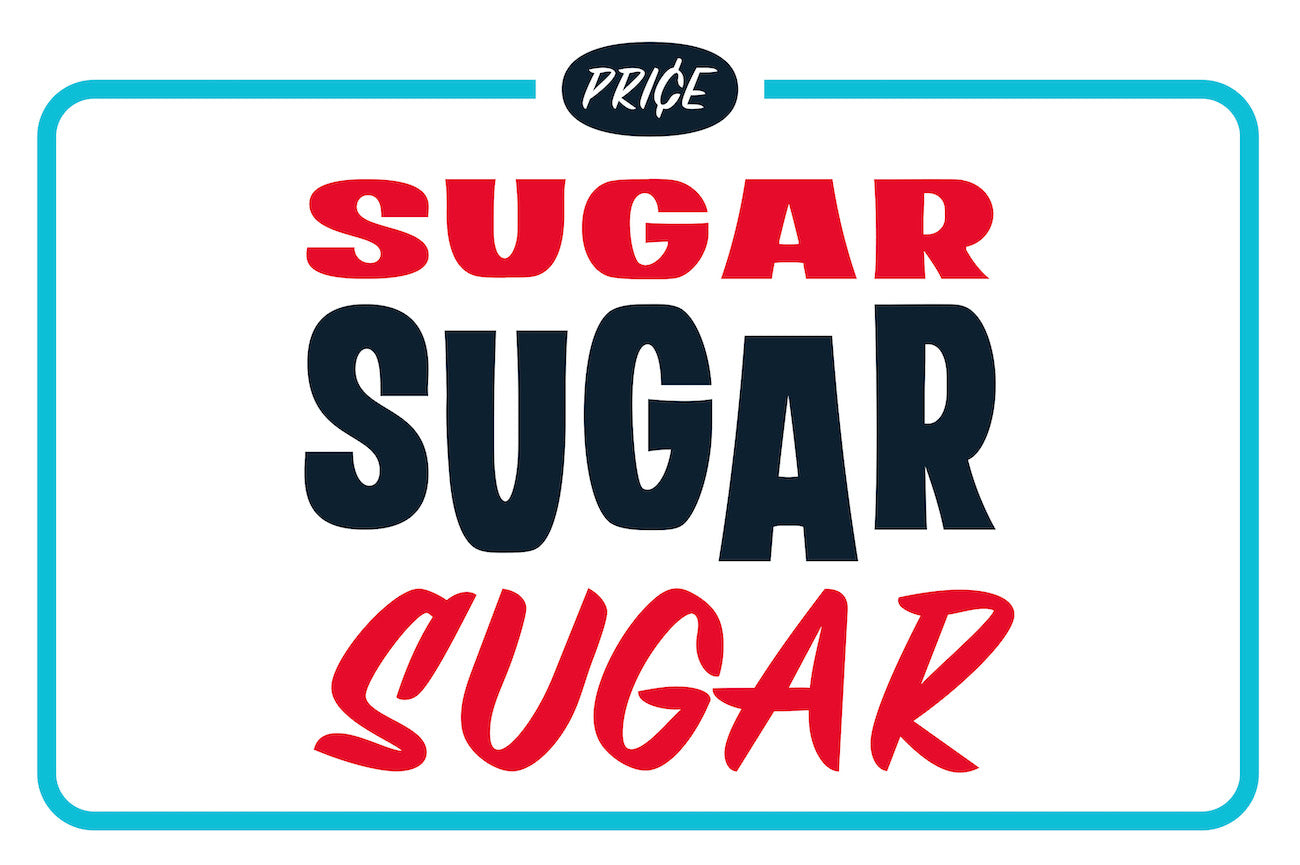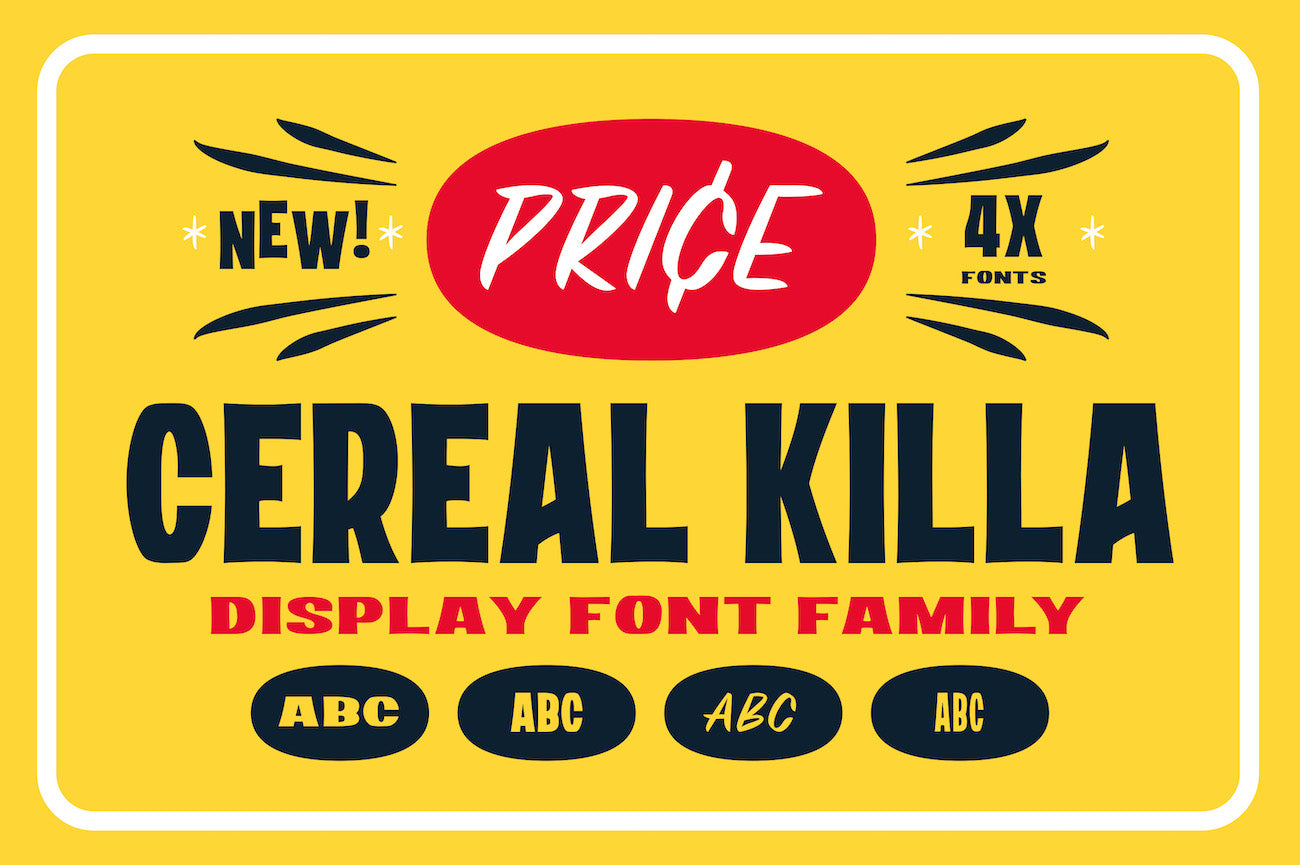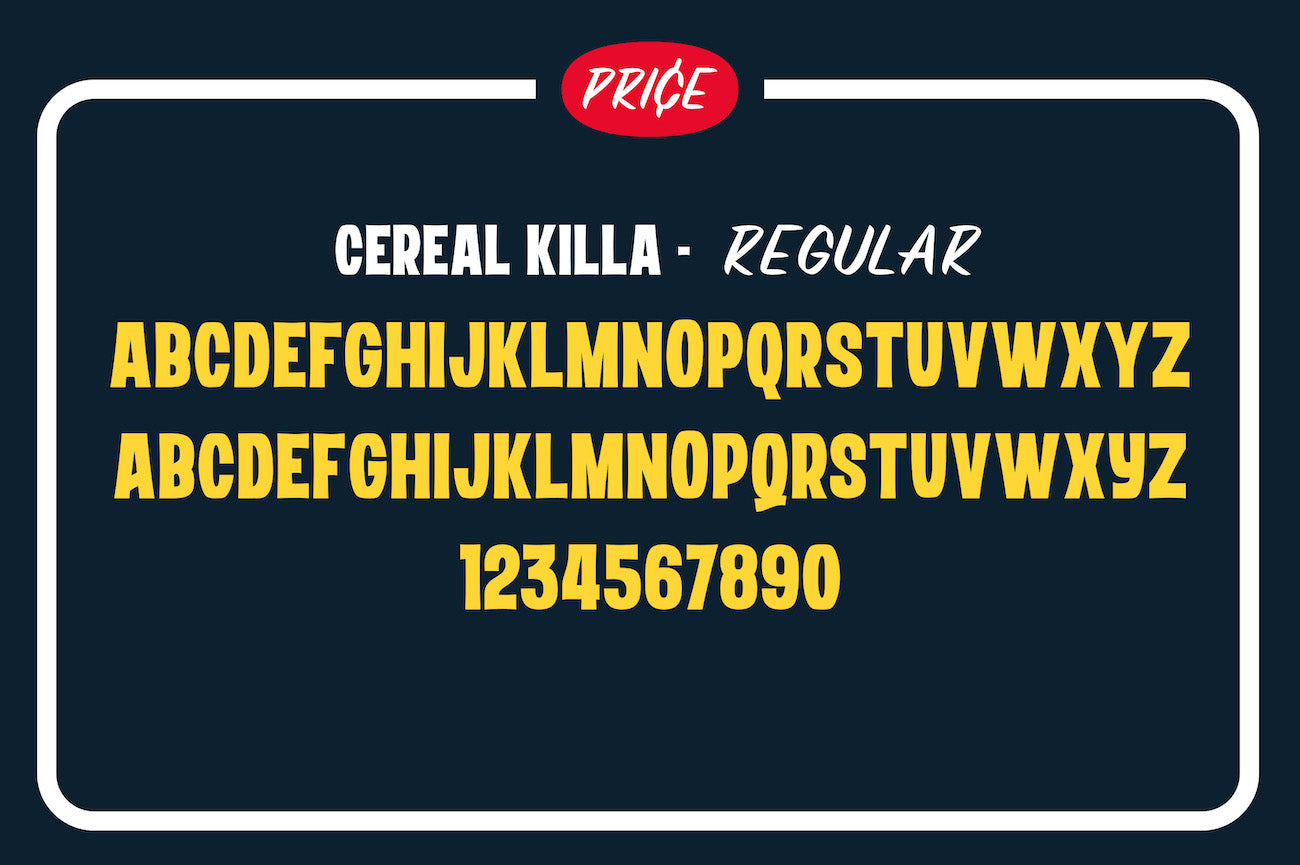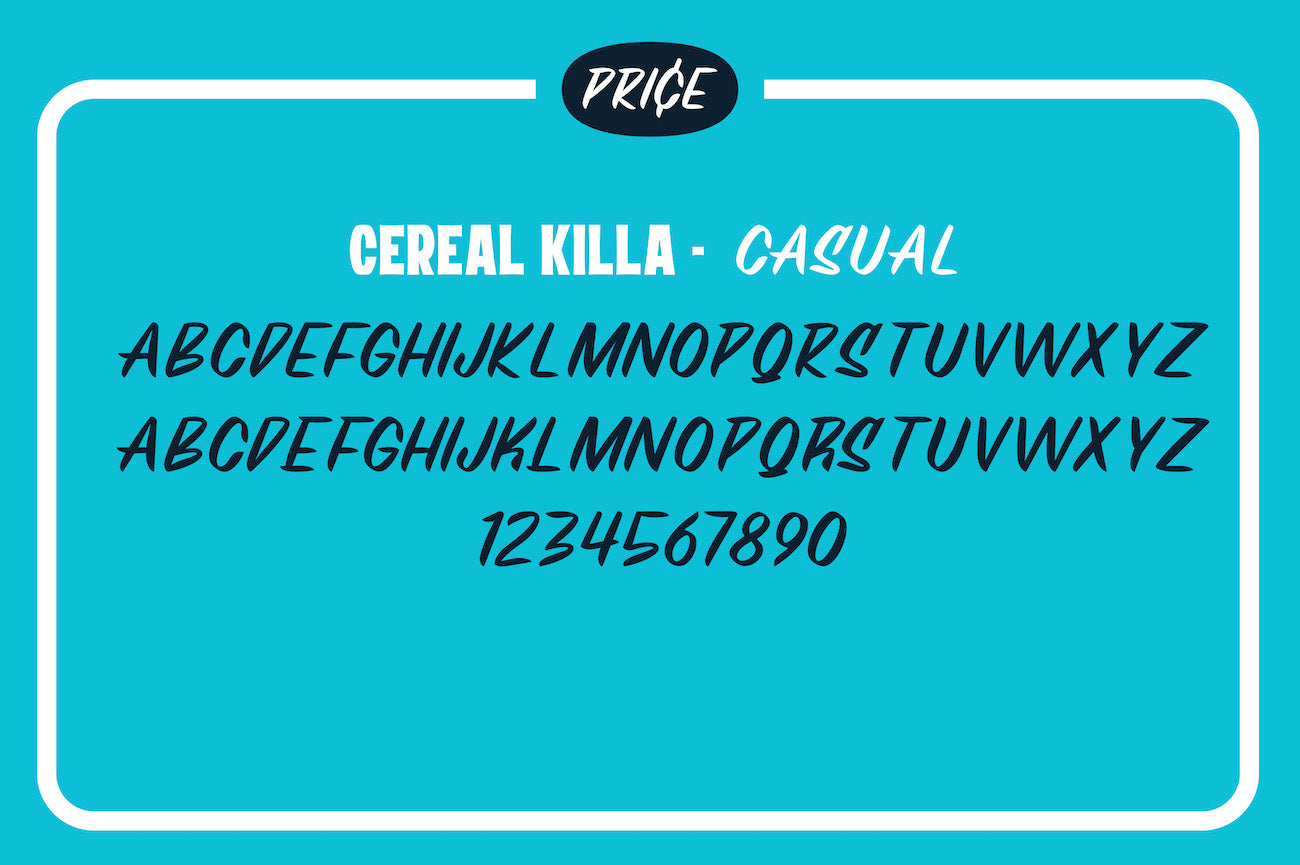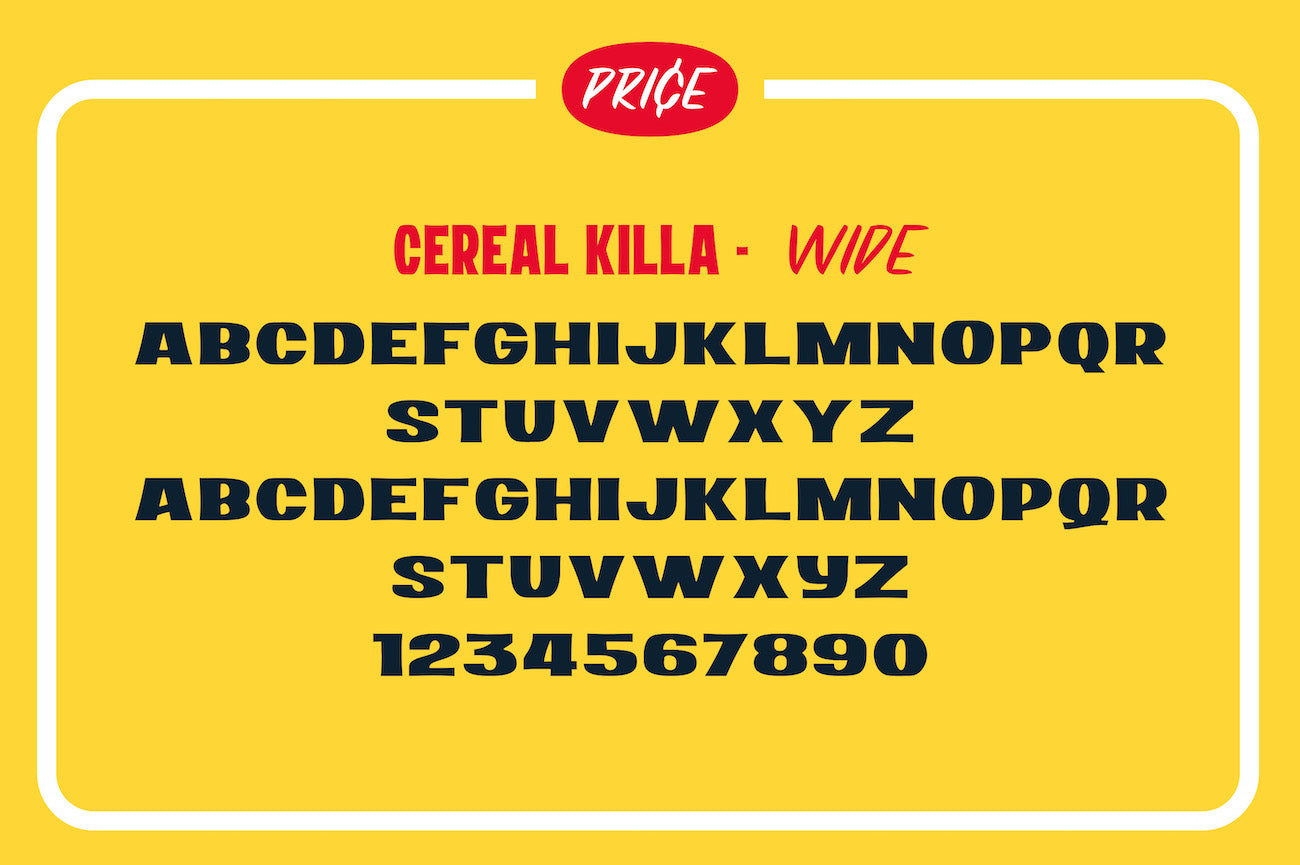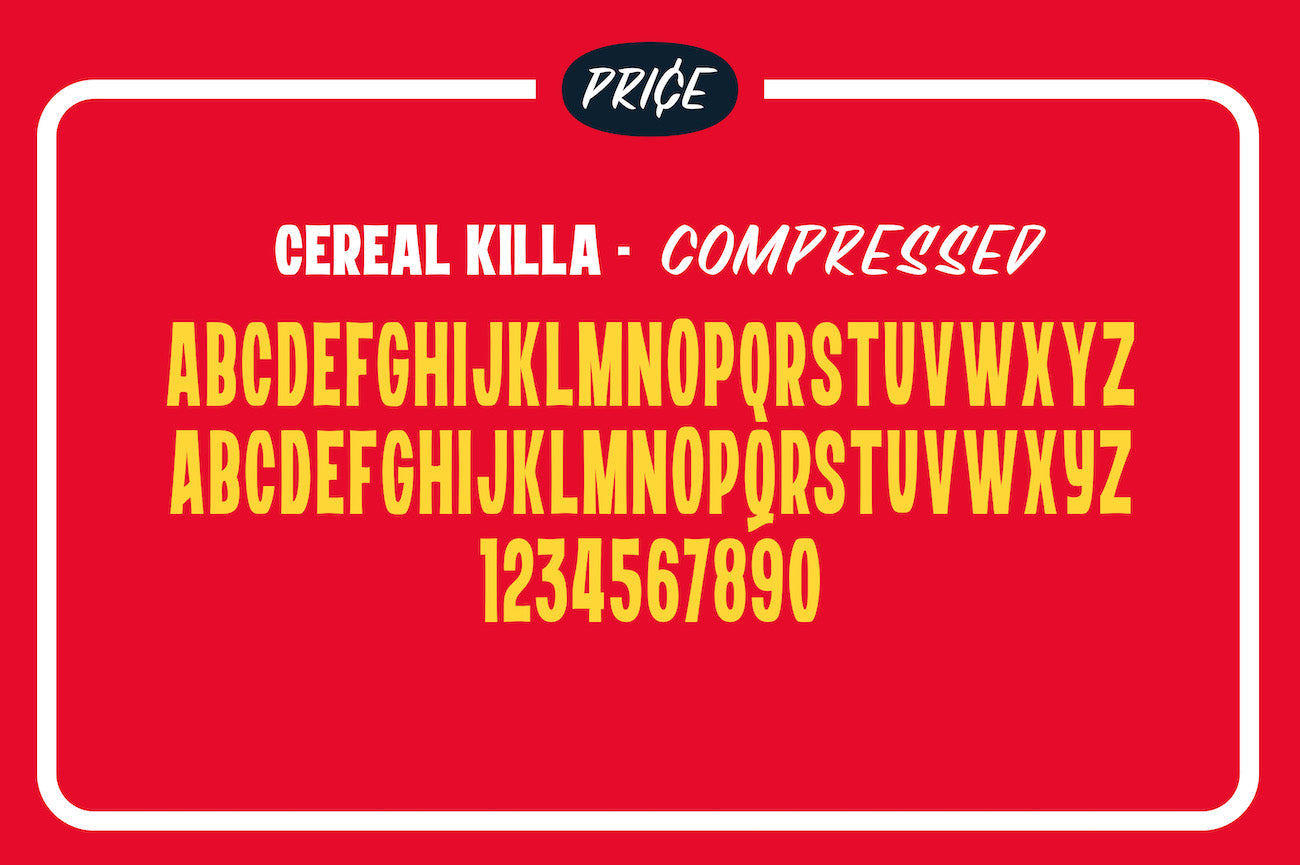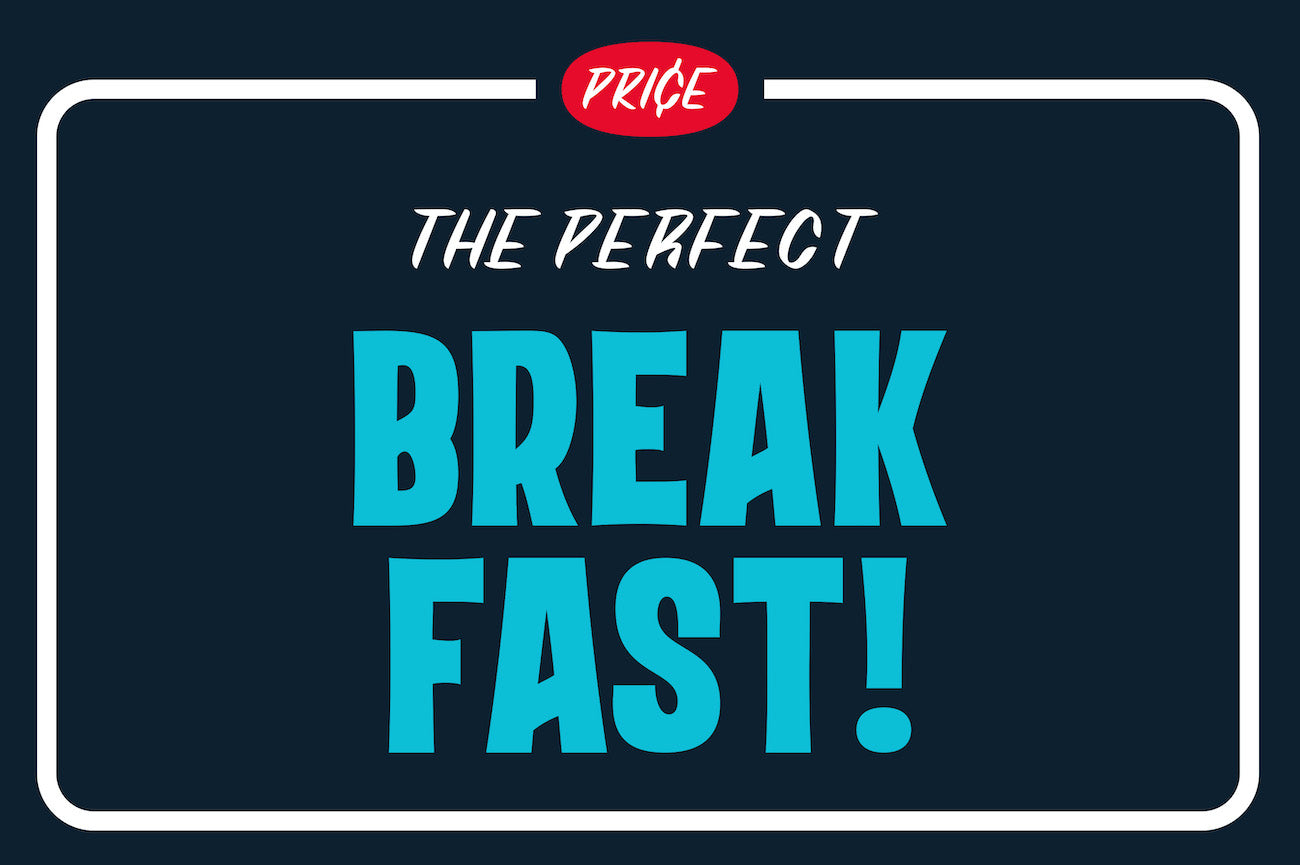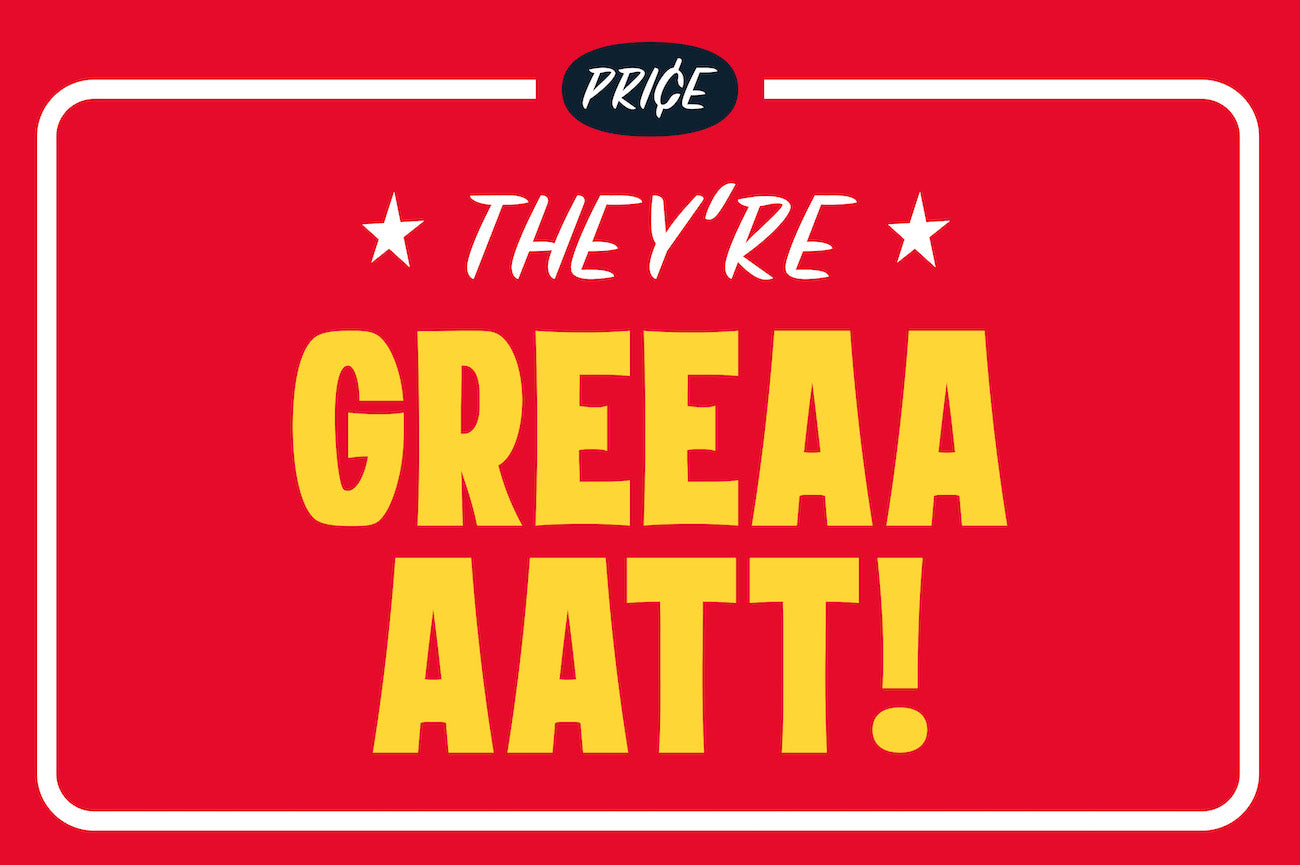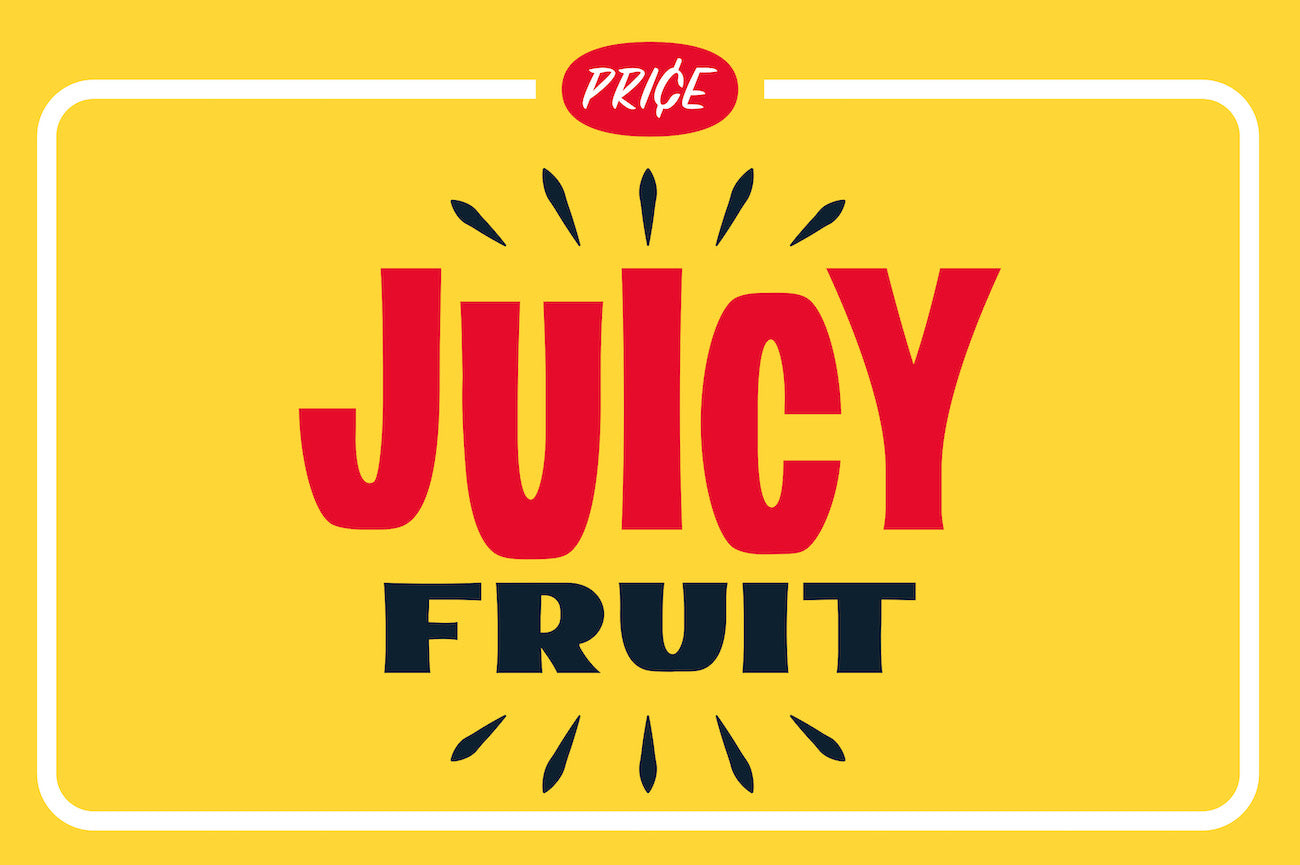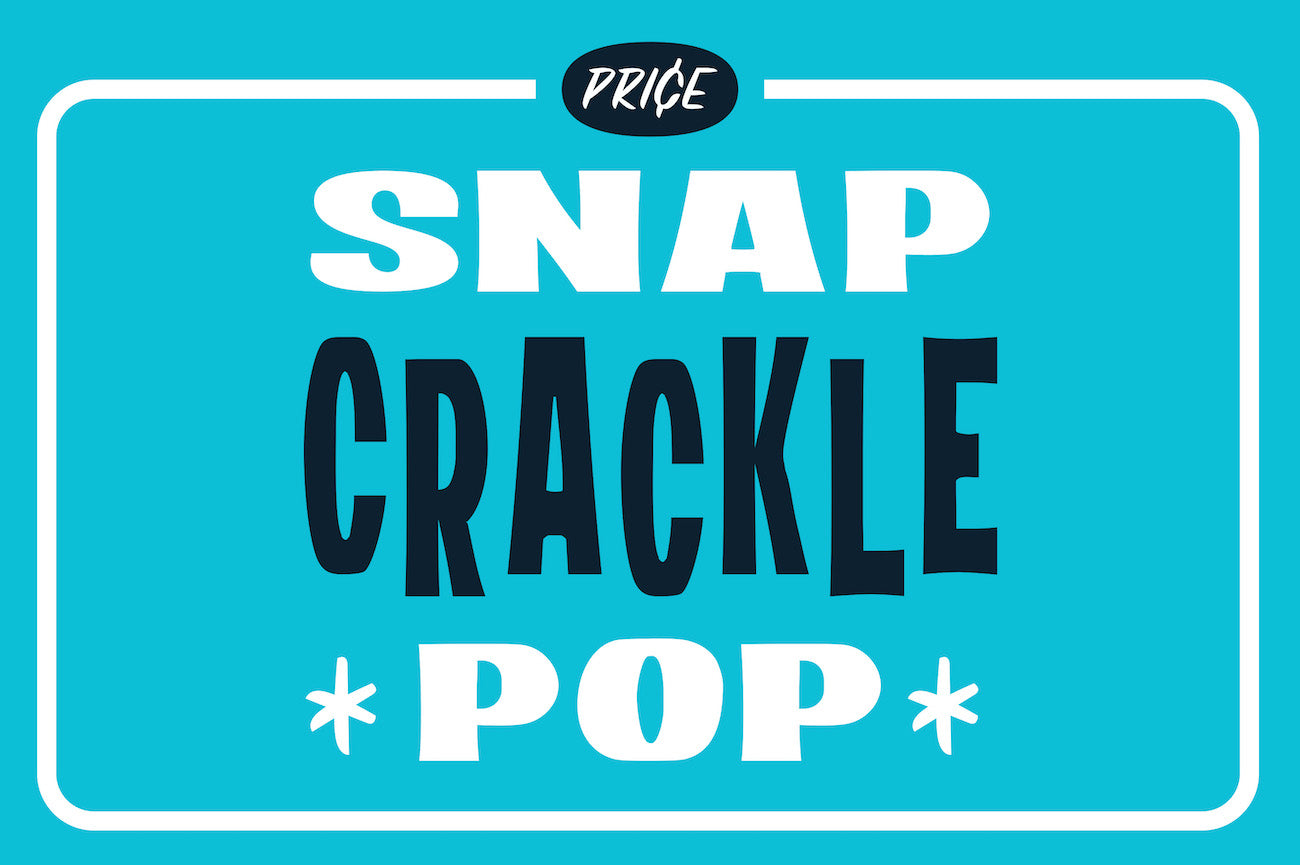
CEREAL KILLA
CEREAL KILLA is a display font family inspired by old cereal box packaging that's sure to give your designs an extra crunch!
Whether you're looking for a playful, kitschy, or quirky typeface, CEREAL KILLA has got you covered.
Each of the 4 alphabets has been lovingly crafted by illustrator and designer, Travis Price — resulting in a gorgeous retro font with perfect balance and volume.